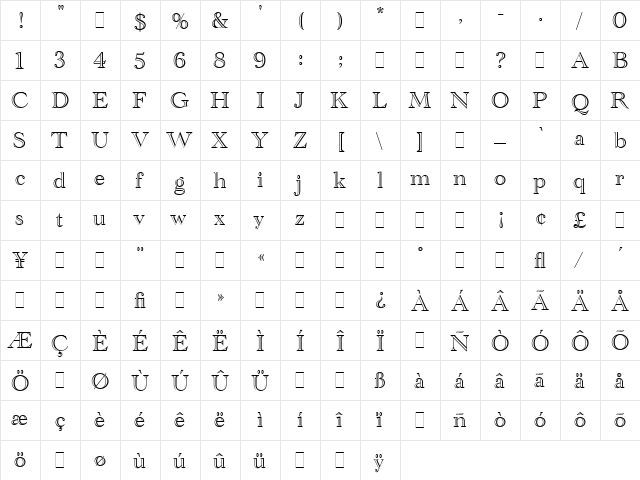
Academy Engraved LET Regular
Design Context for Academy Engraved LET Typeface
Academy Engraved LET brings ornamental detail and strong personality to headlines and identities, where visual impact matters more than quiet functionality.
Font Pairing: Pair with a clean neutral sans-serif for body copy to let Academy Engraved LET's character lead without overwhelming the composition.
Pro Tip: Treat Academy Engraved LET as the centrepiece of your typographic hierarchy. One strong heading set in a decorative face can carry an entire layout.